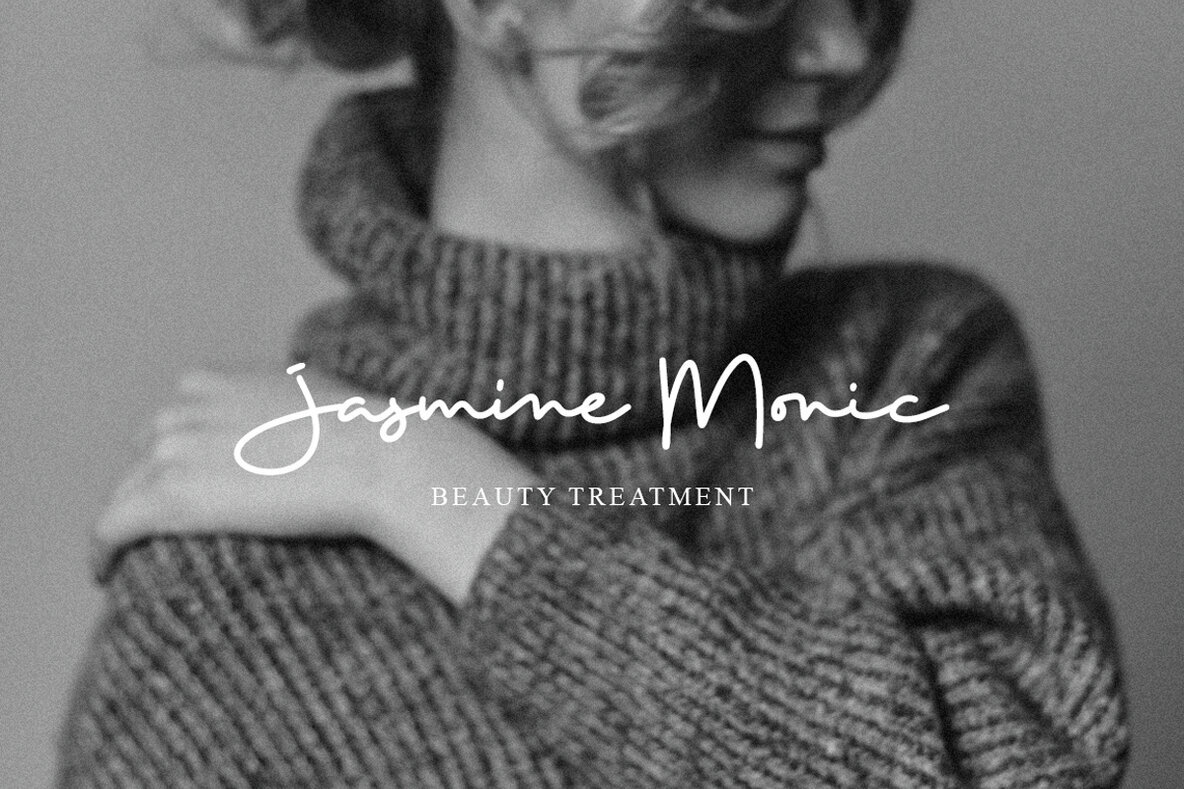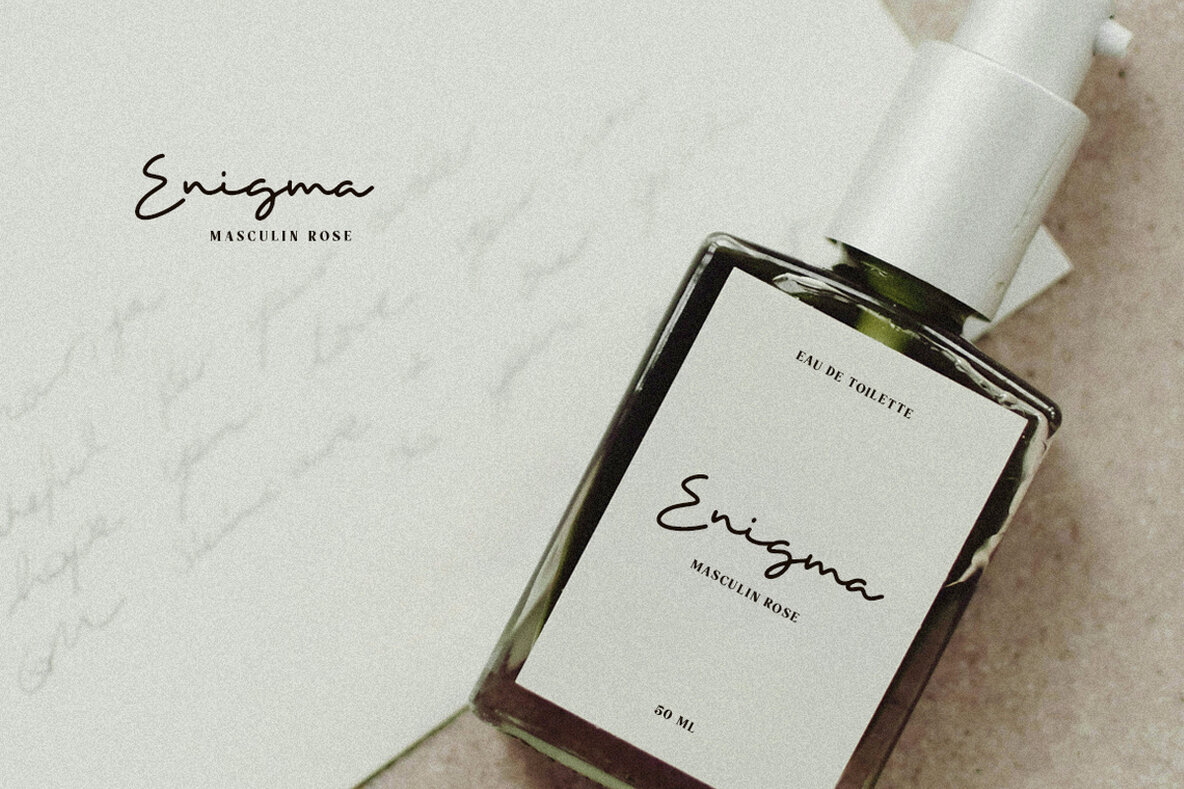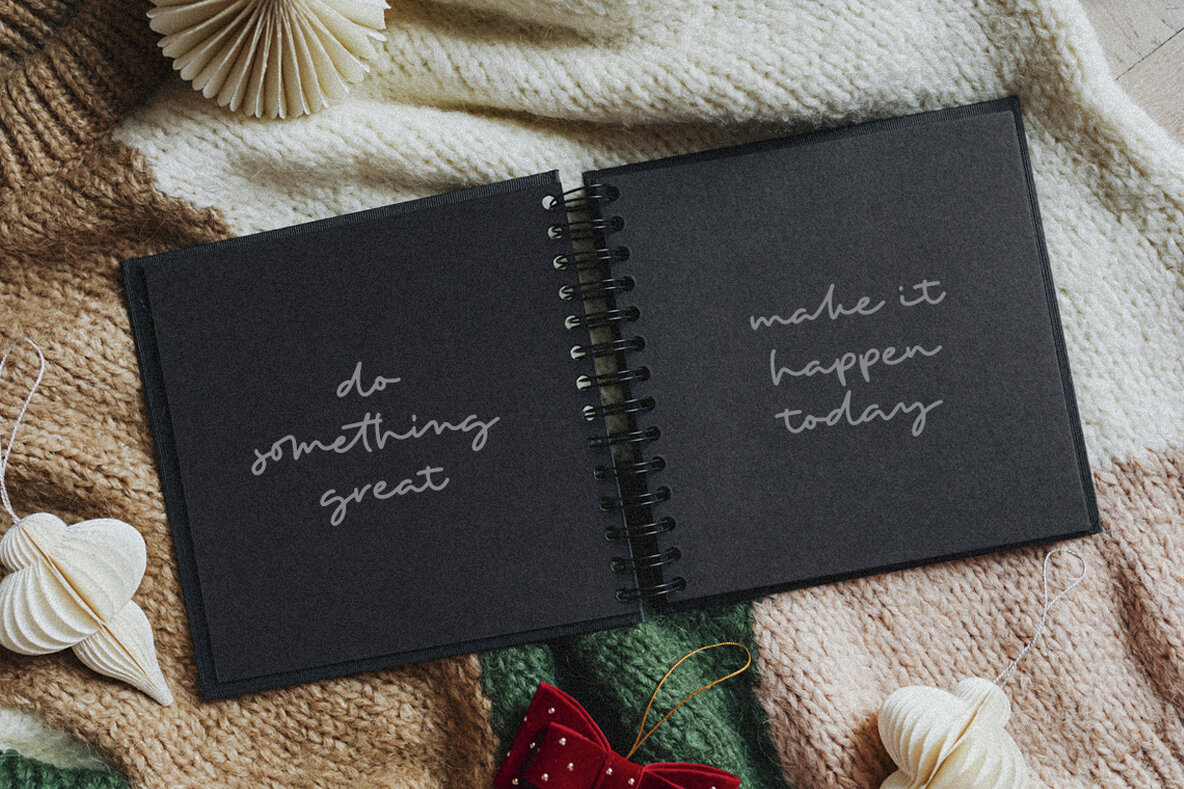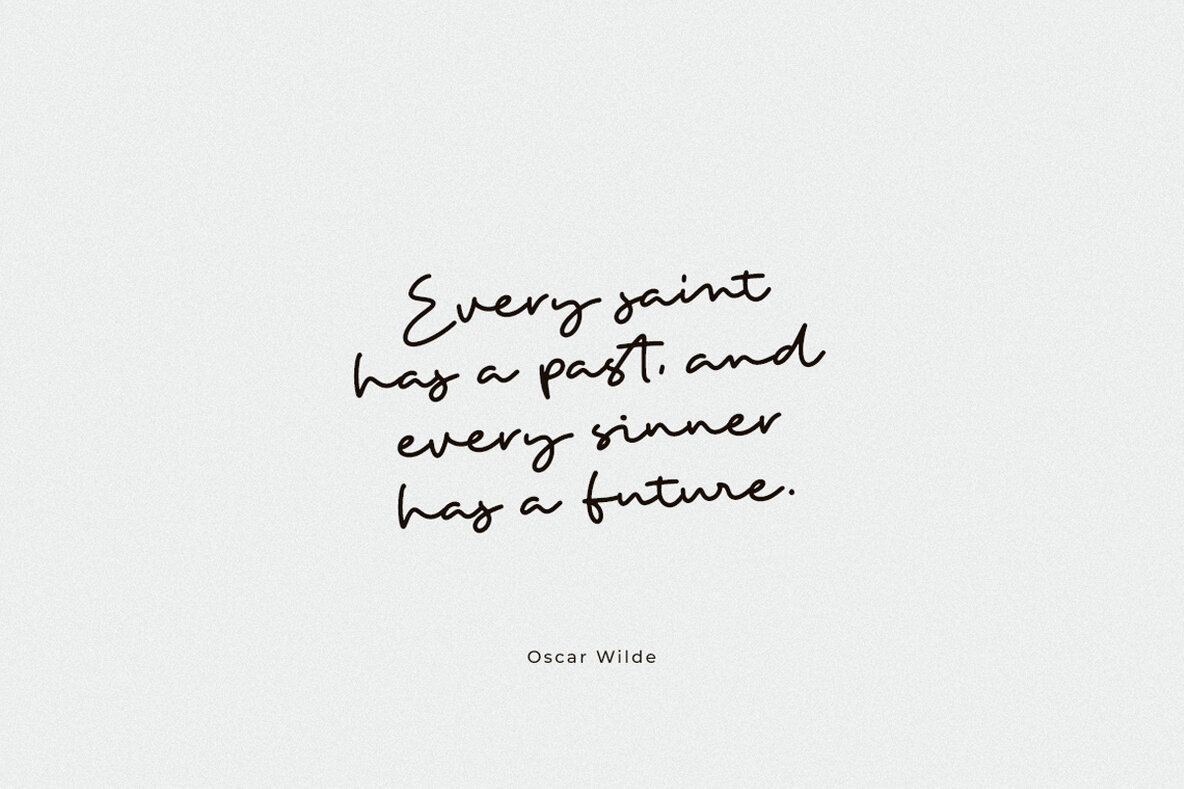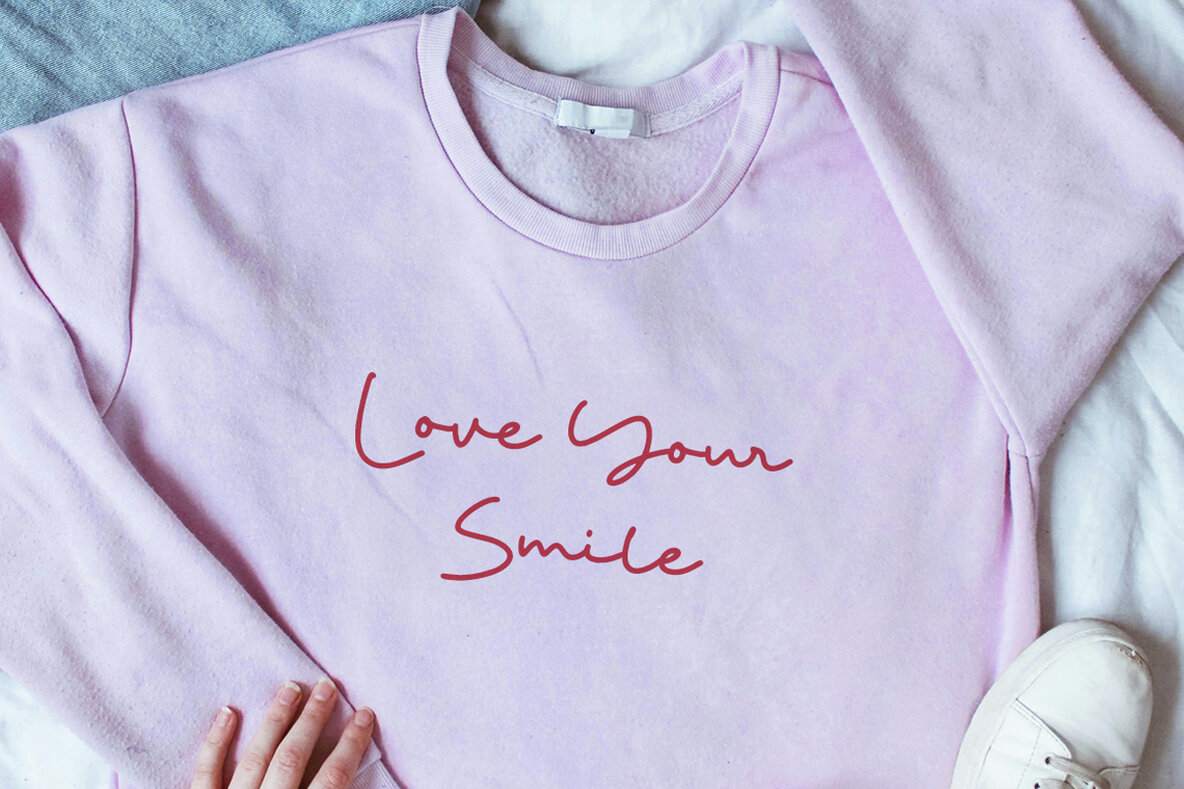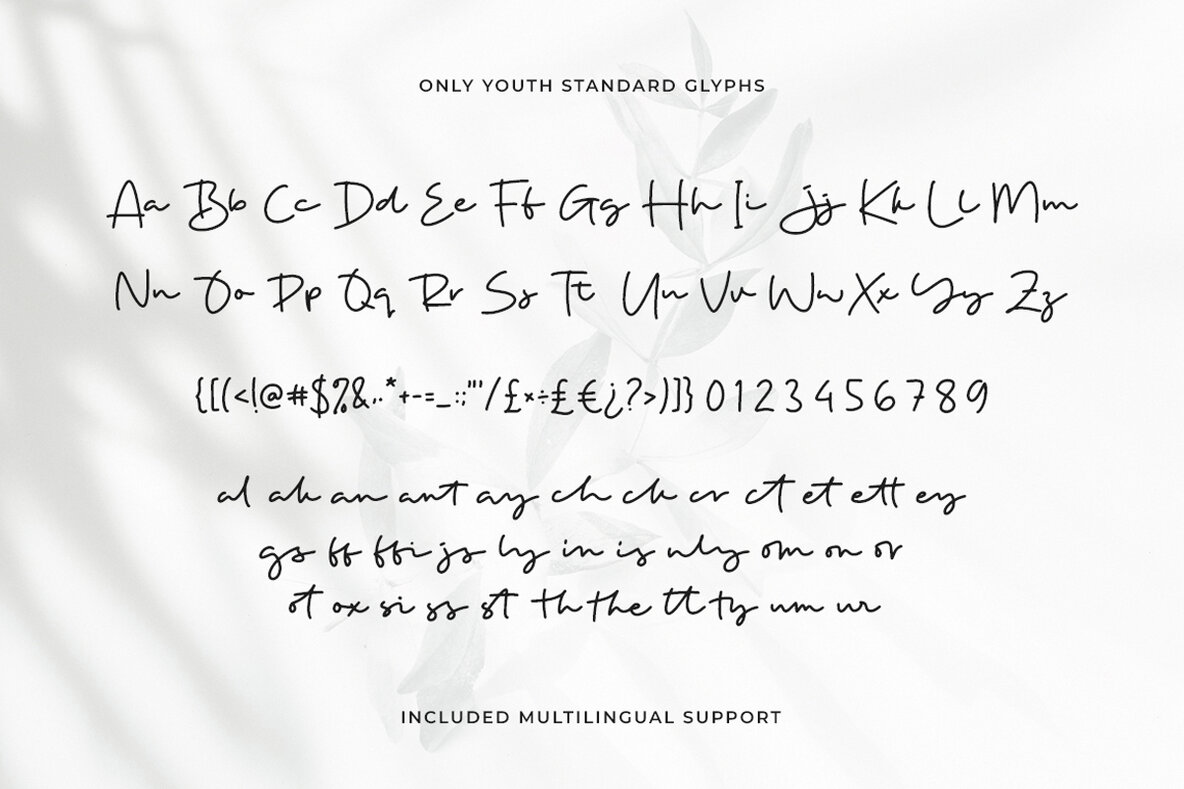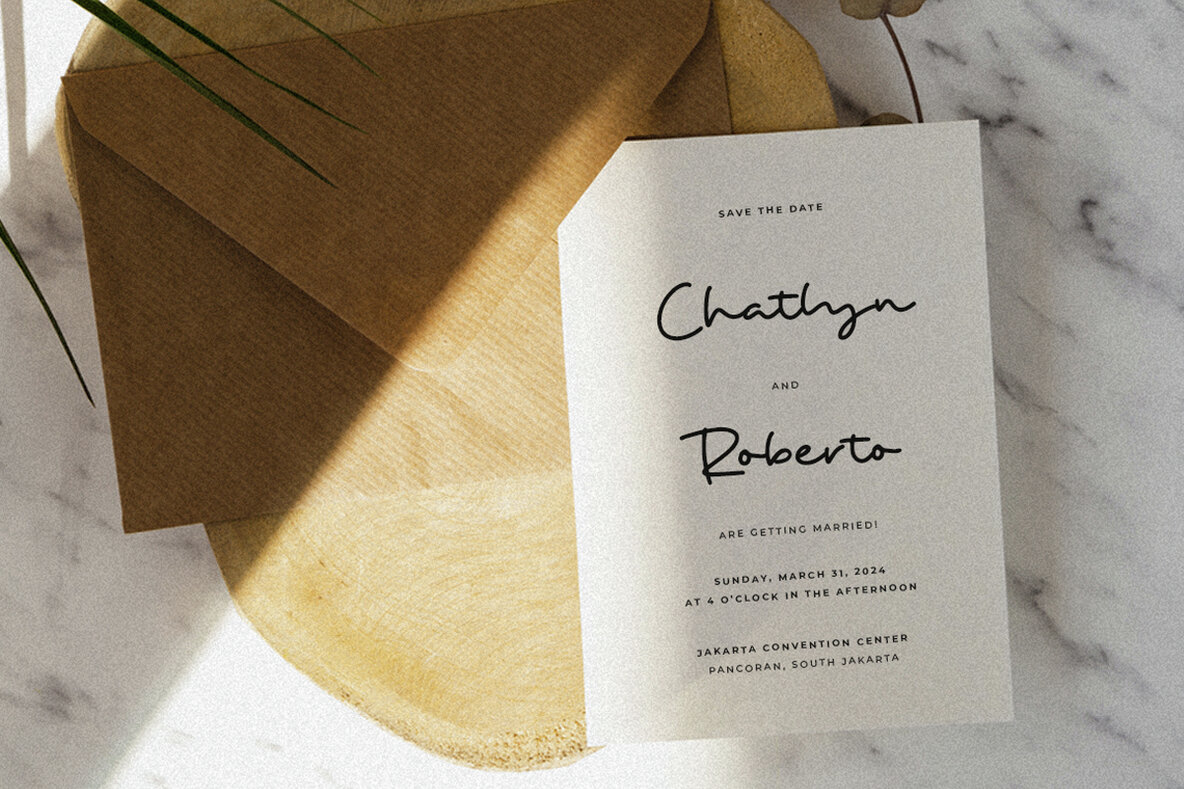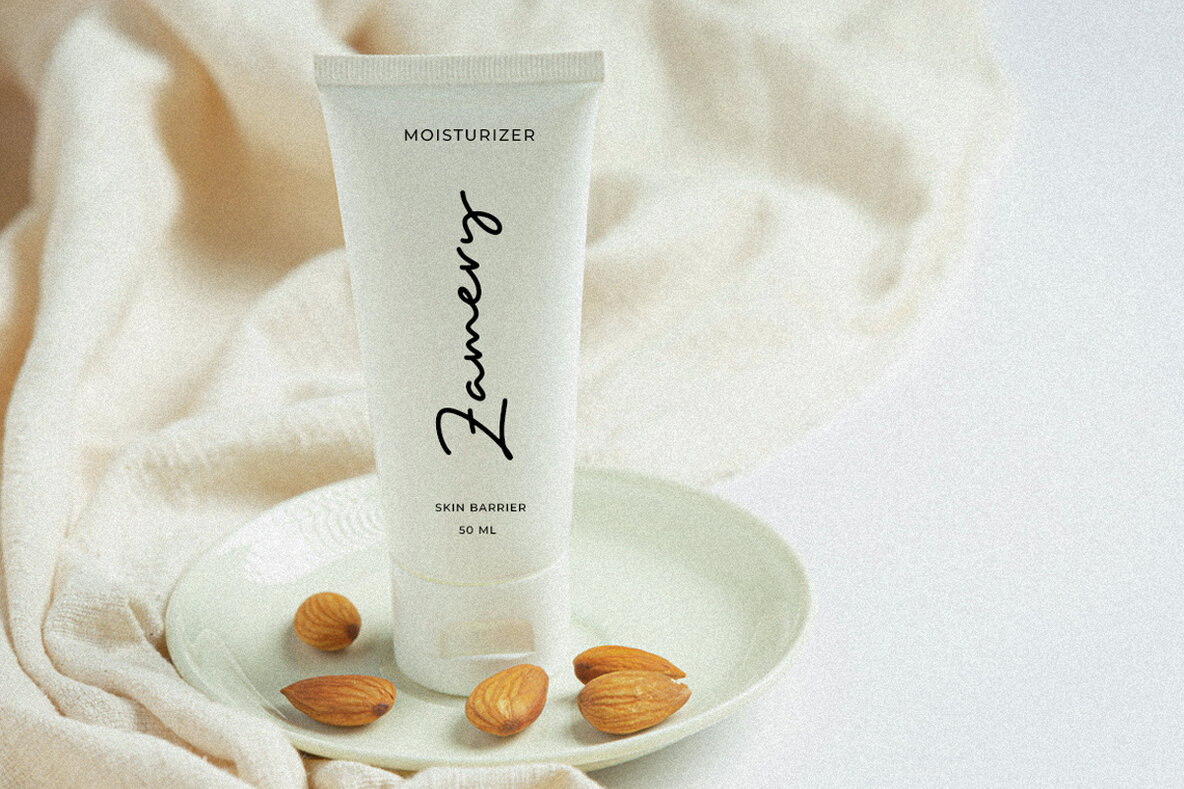
Only Youth Font
Only Youth Regular
Only Youth is a captivating handwritten font characterized by its elegant flow, ideal for adding a personalized touch to your design projects. Its versatility makes it suitable for various applications, such as wedding invitations, thank you cards, quotes, greeting cards, and more. The font's unique and timeless style enhances the visual appeal of logos and business cards, ensuring your designs leave a lasting impression.
This font's distinct charm makes it a perfect choice for projects that require a handwritten feel. Its graceful appearance contributes to the sophistication of any design, allowing you to create visually stunning works that resonate with your audience. Utilize its flowing elegance to bring your creative visions to life with authenticity and flair.